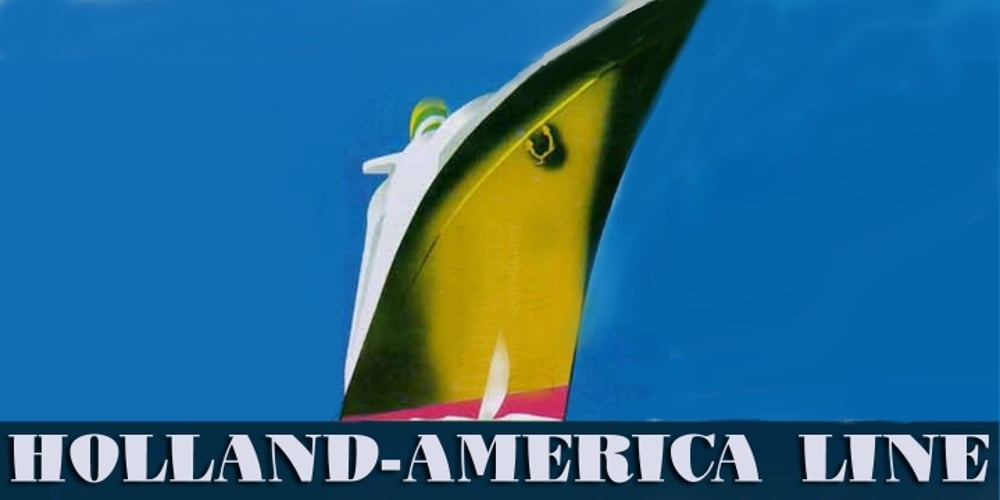
Deco Doni Font Family was designed by Anton Scholtz and published by Scholtz Fonts. Deco Doni contains 3 styles and family package options. Deco Doni is a font with two conceptual inputs: It derives inspiration from 1. The Didot/Bodoni style of font, with its dramatic contrast between thin and thick lines, and 2. The quirky, fun-filled look of many art deco fonts. The name “Deco Doni” was derived from these two inputs: art DECO + boDONI. Deco Doni doesn’t take itself seriously, yet is crafted with all the care of its antecedents. The font has been carefully kerned and best results are obtained if kerning is switched on. However, even without kerning, the character shapes and spacing are very attractive. ¬†All-caps passages work well and so you can use all-cap headlines. A number of (open-type) automatic ligatures are included to make the character spacing truly professional. It is perfect for the creation of a retro feel in headings and subheads and also works extremely well as a text font in small sizes. Deco Doni Narrow has been especially designed so that the narrower parts of the characters do not become hard to read at small font sizes.